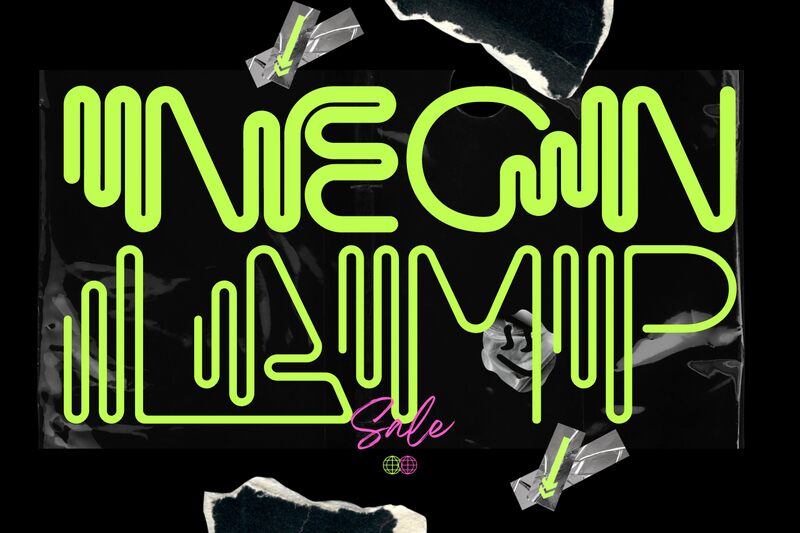
Neon Lamp font by 177Studio is an expanded display typeface inspired by the bright tubular light lamps. This free font is retro-inspired with a modern twist, geometric in its construction. Presenting upper and lowercase letters, it embodies a futuristic feel that is still relatable to all age groups. With this tool, the user will be able to produce digital and print projects worthy of being printed!
Use Neon Lamp for college poster designs for school events. Or type text overlays on social media posts related to sales deals and don’t forget about how great your logo ideas are going to look with it!